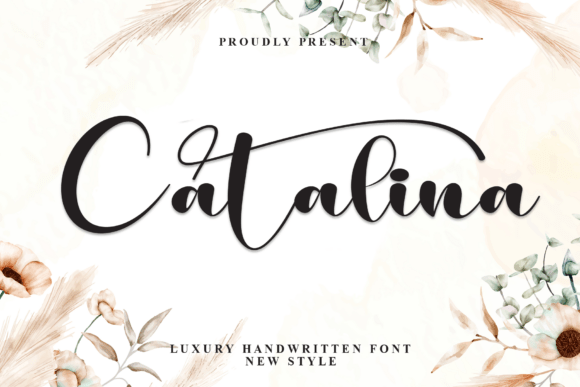
Unlock Creative Possibilities with Catalina Font
Have you ever been in the middle of a design project, and suddenly, you’re stuck on finding the perfect font? I recall a recent experience where I was working on a wedding invitation design, and my client requested a unique, elegant font that would match their special day’s theme. After hours of searching, I stumbled upon the Catalina Font, which completely transformed my design. In this article, I’ll share my journey with this fantastic font, its features, and how you can make the most of it in your creative projects.
What Makes Catalina Font Special?
The Catalina Font is a creative product designed to give you an extraordinary experience. Its latest style letters are perfect for various applications, including wall displays, wedding invitations, social media post logos, advertisements, product packaging, product designs, labels, photography, watermarks, invitations, stationery, and any project that requires tasteful handwriting.
Honest Review: The Good and the Quirks
Here’s my honest take on the Catalina Font:
- ✨ Elegant and unique design
- ✅ Highly versatile for various projects
While the Catalina Font is exceptional, there are a few minor considerations:
- 🤔 Some users might find the font a bit too stylized for certain projects
The Story Behind Catalina Font
The Catalina Font was inspired by the beautiful landscapes and elegant themes of Catalina Island. The designer aimed to create a font that embodies sophistication, creativity, and a touch of playfulness. The result is a versatile font that can elevate any design project.
With its elegant design, versatility, and ease of use, the Catalina Font is an excellent addition to any designer’s toolkit. Whether you’re working on a wedding invitation, a branding project, or simply exploring your creative side, this font is sure to inspire and elevate your work.